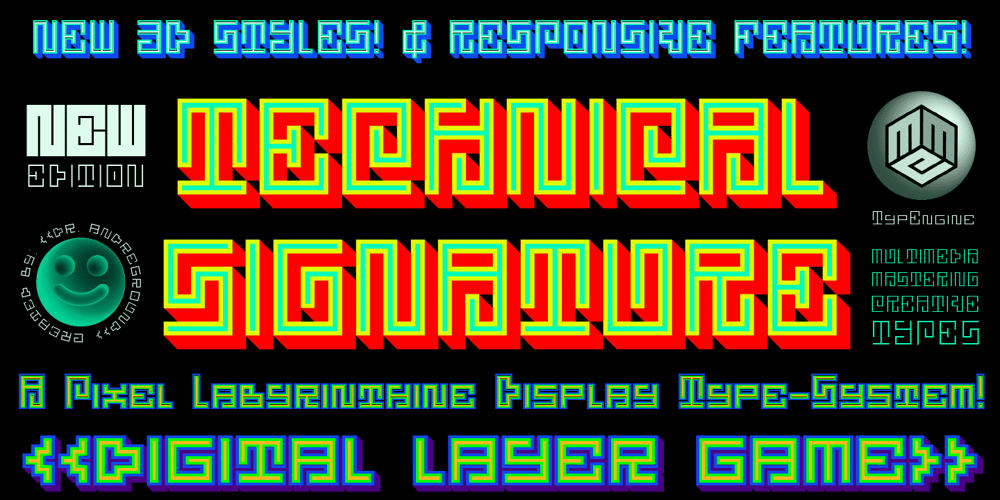
Technical Signature
Technical Signature font
Technical Signature Font Family was designed by Dr. Andréground and published by MMC-TypEngine. Technical Signature contains 18 styles and family package options. ‘Technical Signature’ 2015-2021. A Pixel labyrinthine Display Type System! Plus, Digital “Layer Game”, Futuristic & Sci-Fi Optical Texting for interfaces evolution Landmarks! Now with 3D Styles! 18 Styles total! Revised, Verified & Updated New Edition ! It was inspired also by antique juxtaposed zig-zag Greek mosaics ornaments “ancient times computer” which defined it into a Small Caps Font, while another pair font with same metrics was made to reminisce the manuscript look as a “sister” and Cursive symbiont.Searching for a technical language and perpetration, resulted in many combined styles by matching the primary ones so there’s plenty variations for multi-purpose texting like layered typesetting or simply monochromatic designs… Plus got accurate streaming resolution, therefore some sub-families like Stamp and Texture implicates greater points for minimum size as Regular and Light is appropriated to Small Optical Text reductions.*The New 3’s Upgraded Edition Improvements consisted of Correct ‘Font Info’ (verified data-debugging) rescaled glyphs, quick design review, better correspondent renamed fonts & style linking, addition of responsive OT features encoding and 3D Styles. Multilanguage Support: Western & Eastern European, Baltic, Turkish, Greek, and Cyrillic.This Type is ideal to Technician Designs, things like Footer Signage, Engineering & Crafts Logos, Op-Art Posters, Stamps, Labels, Printed & Digital Certificates, Plus Movies interfaces, Internet Headings and Text and of course Video Games!